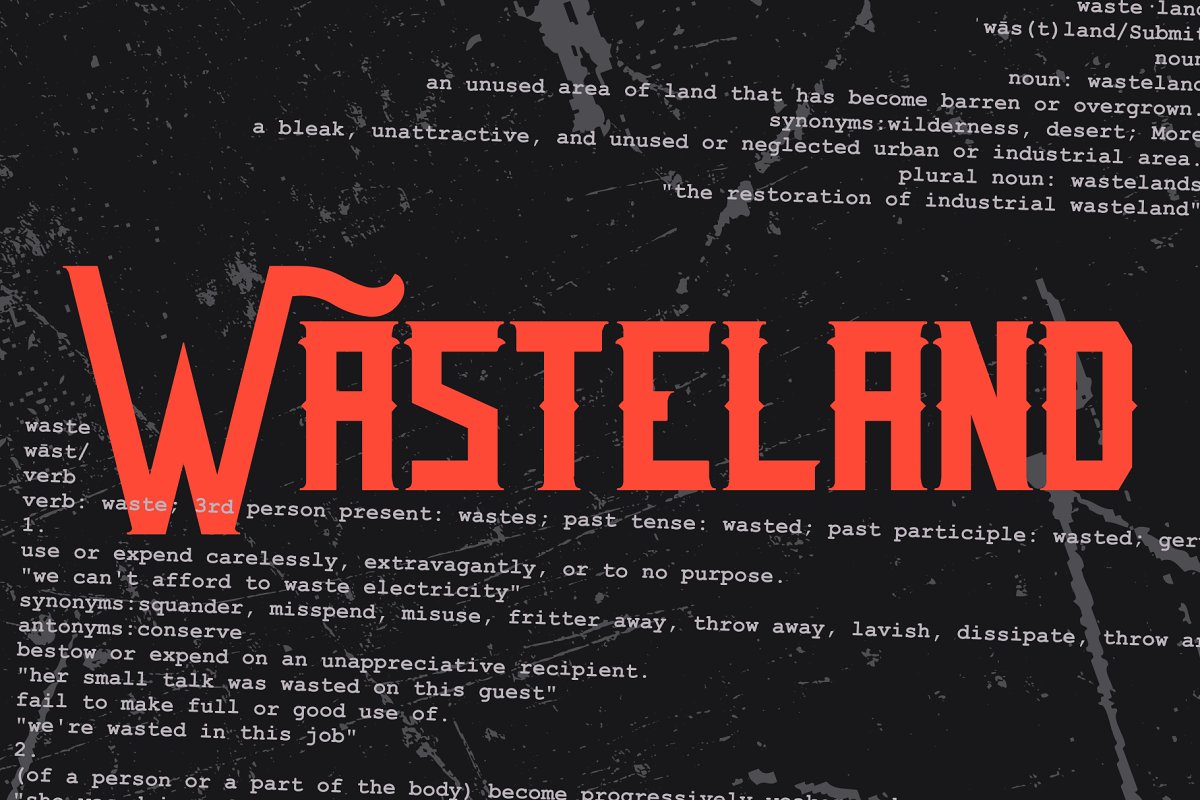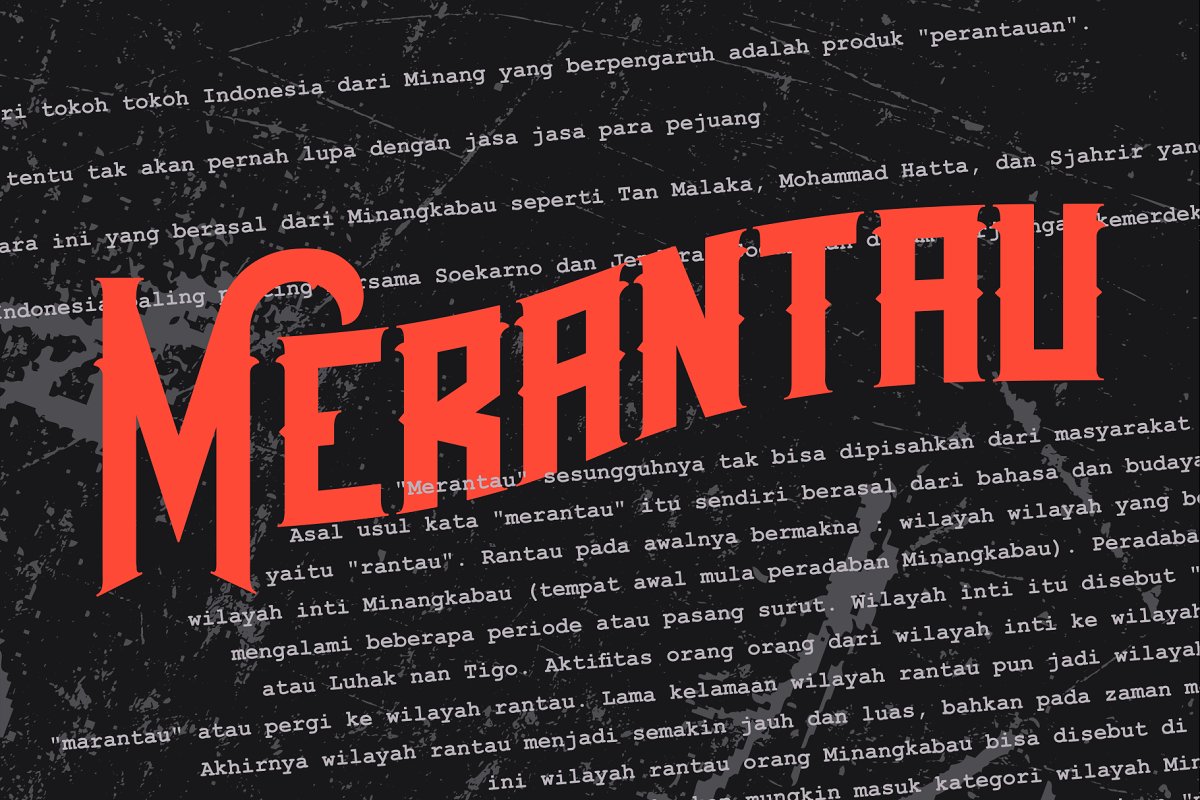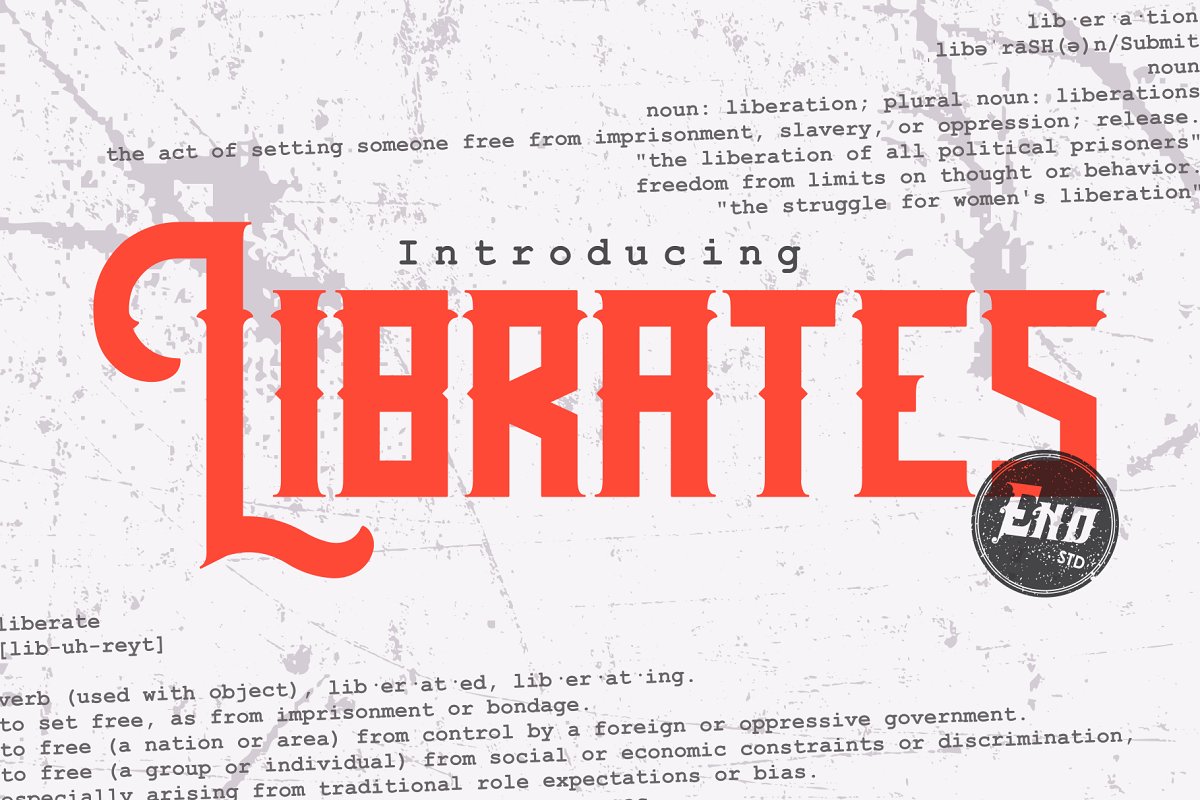
Librates Typeface Font
INTRODUCING Librates typeface
Librates is strong typeface was design carefully for typography works, based on strong block, maskulin and solid character. This typeface will be suited to every typography works need, perfect choice for logos, badges, clothing, signage, posters, labels and much more !